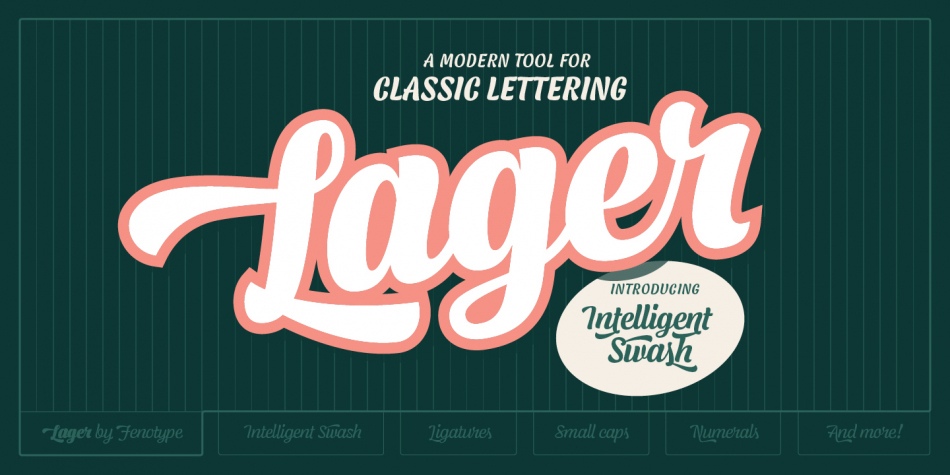
Lager Font
Lager Font is perfect for brewery branding, beer label designs, restaurant menus, pub signage, craft beverage packaging, industrial design projects, vintage-inspired posters, masculine brand identities, outdoor adventure campaigns, and rustic marketing materials.
What makes Lager Font exciting is its robust and bold character that embodies strength, authenticity, and craftsmanship. The font captures the essence of traditional brewing heritage while maintaining a contemporary edge that appeals to modern audiences. Its sturdy letterforms and distinctive styling evoke the quality and reliability associated with premium craft beverages, making it an ideal choice for brands that want to communicate authenticity, tradition, and premium quality in their visual identity.
Lager Font family includes various weights such as Regular, Medium, Bold, and Extra Bold, often featuring condensed and extended versions. The family may include decorative elements, vintage-inspired alternates, and special characters that enhance the craft beverage aesthetic, providing designers with multiple options to create compelling brand narratives and distinctive packaging solutions.
This distinctive typeface has become increasingly popular among craft breweries and beverage brands seeking authentic visual identity solutions. Lager Font Free Download provides an excellent opportunity to experience this premium font before investment. The font's character set includes specialized glyphs and symbols that work perfectly for beverage industry applications. Whether you're designing for craft breweries, gastropubs, or artisanal food brands, Lager Font delivers the authentic character your project demands. Its versatile nature makes it suitable for various applications beyond beverage branding, including outdoor brands, masculine lifestyle products, and industrial design projects, ensuring your typography choices reinforce brand values of quality, craftsmanship, and authenticity while creating memorable customer experiences that build lasting brand loyalty.